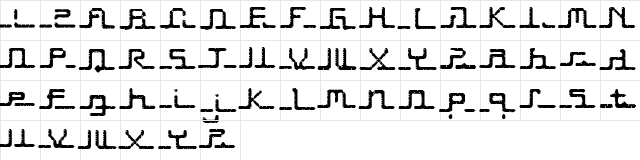
Transcript Regular Font Preview
Transcript Regular
Design Context for Transcript Typeface
Transcript flows with the natural rhythm of handwritten lettering, making it ideal for designs that call for warmth and personal expression.